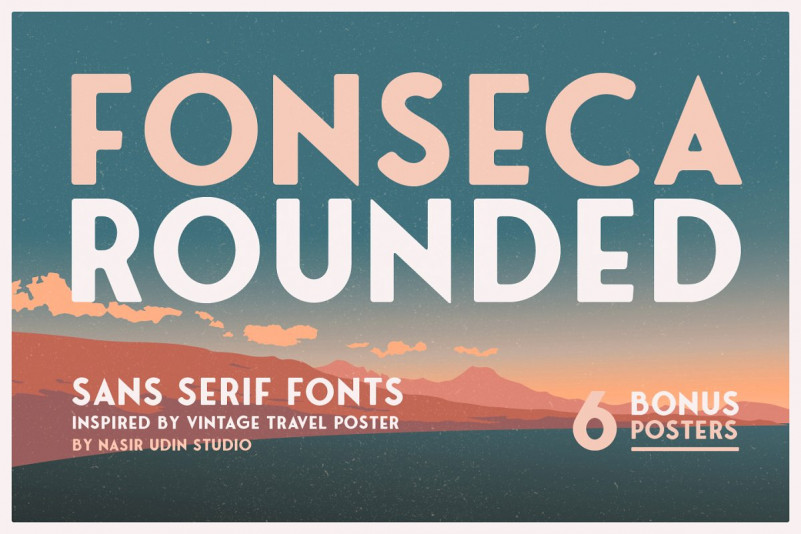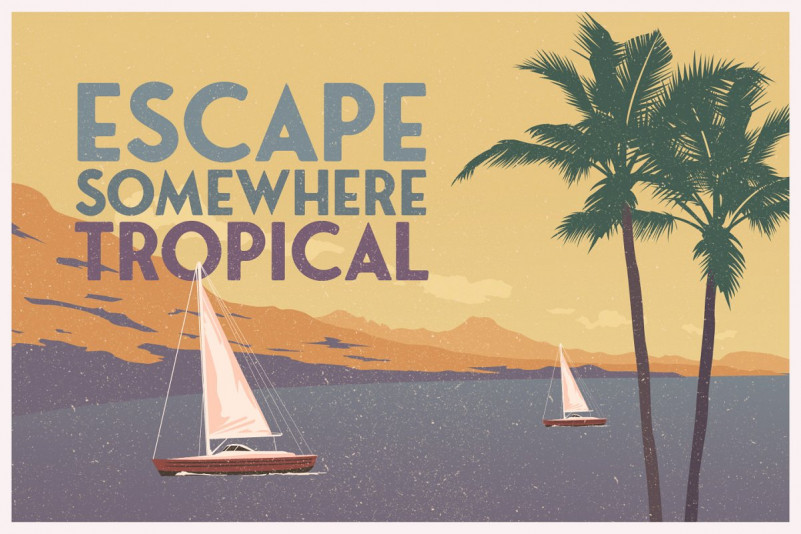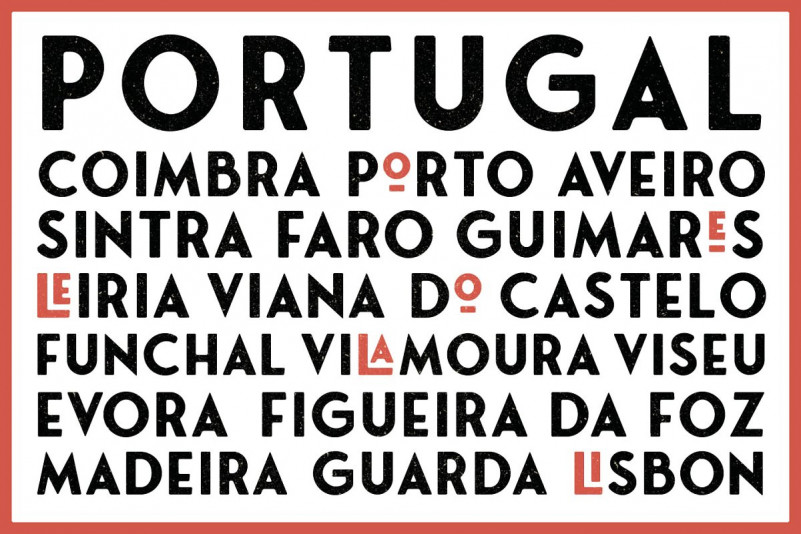
Fonseca Rounded Font
Inspired by Vintage Travel Posters, Fonseca Rounded is a beautiful sans serif font with a contemporary feel. Get inspired by its timeless and classic appeal.